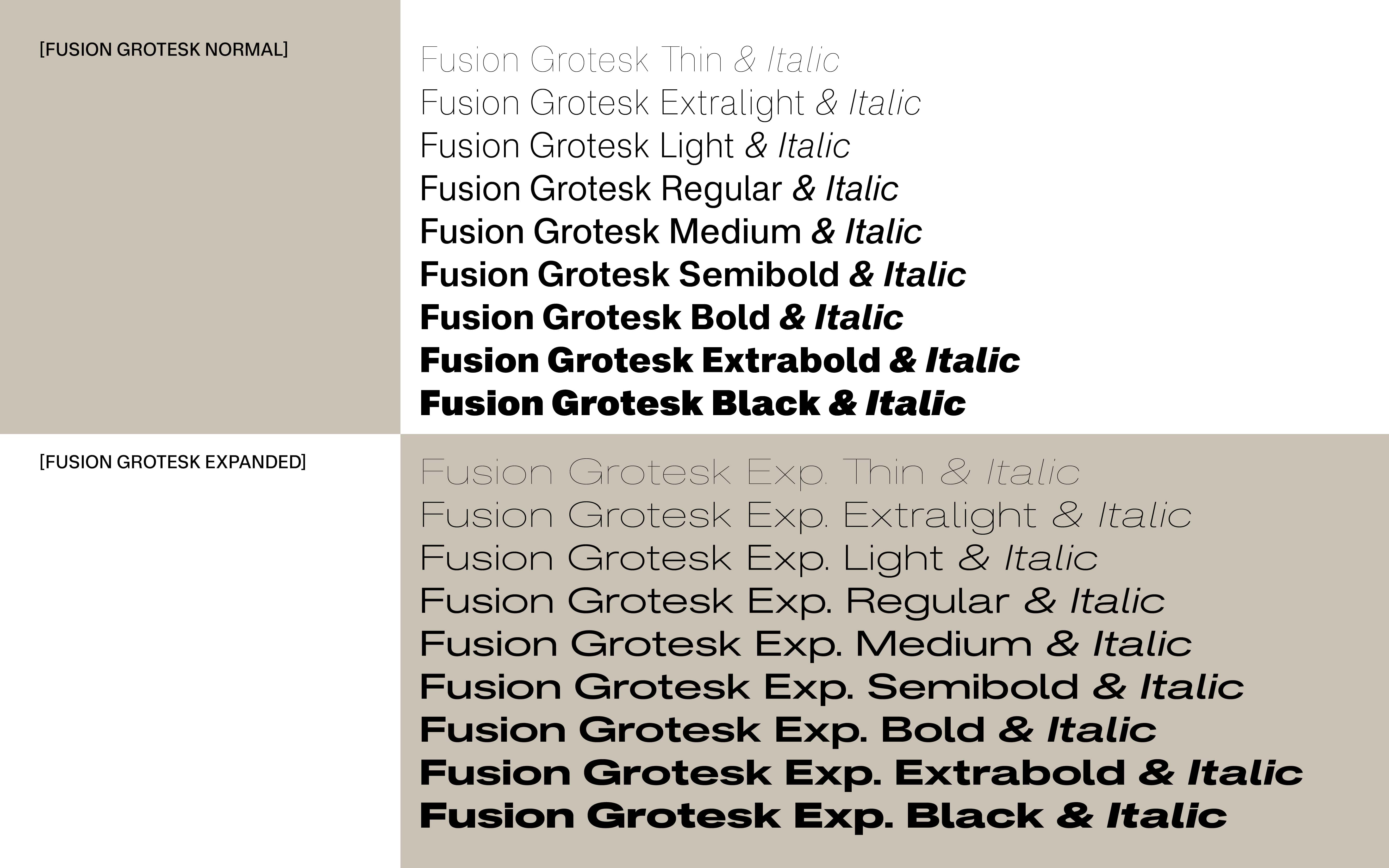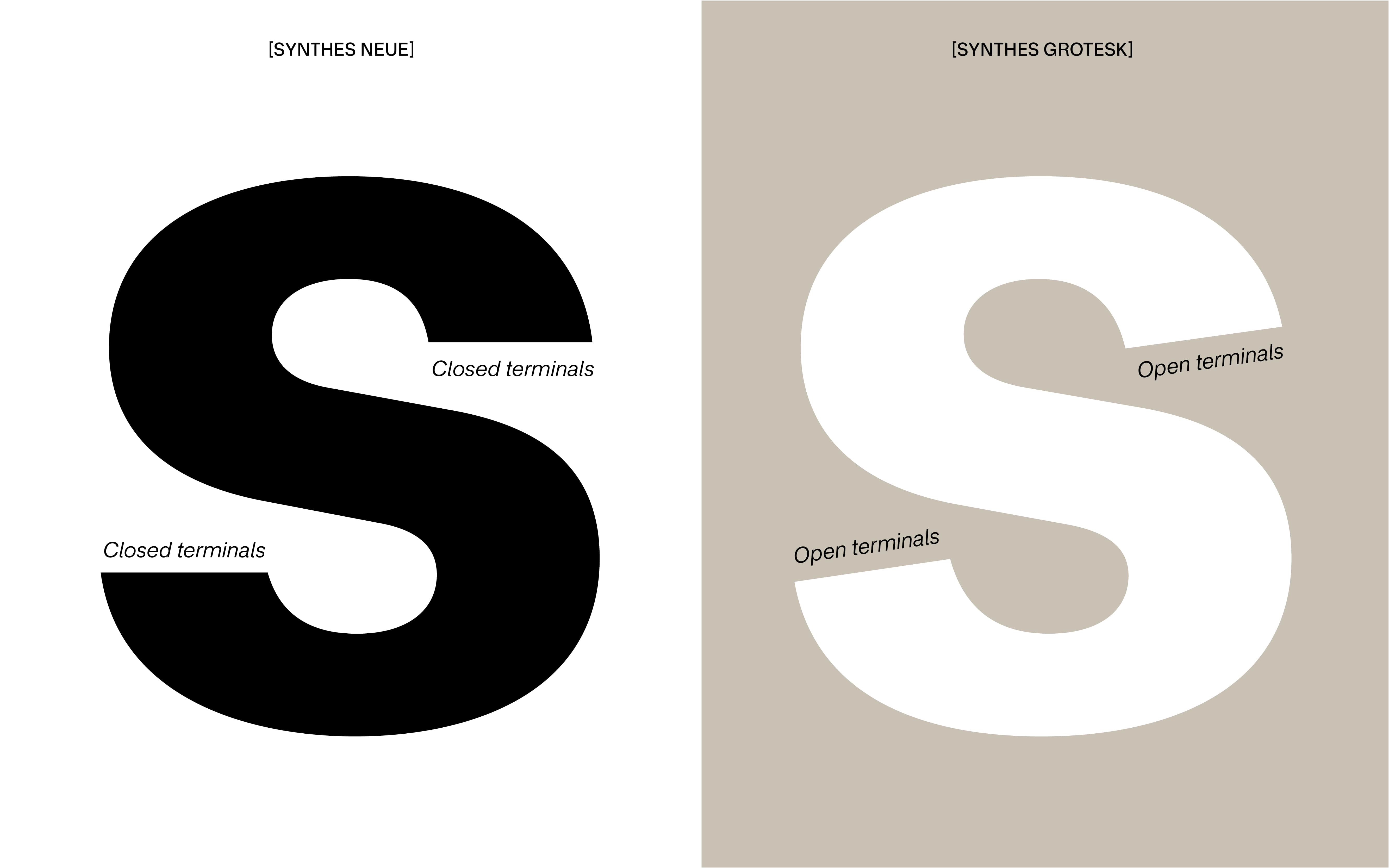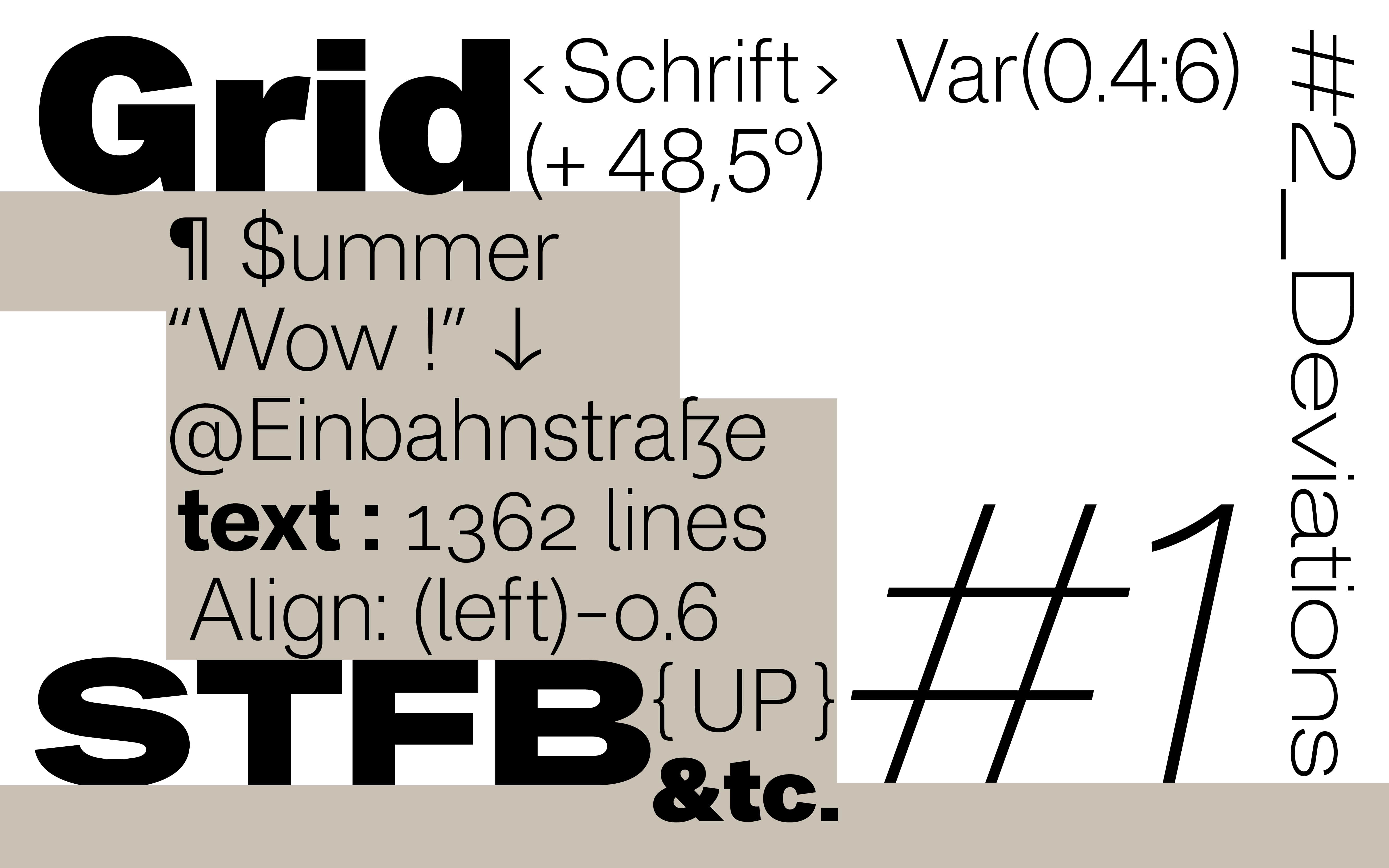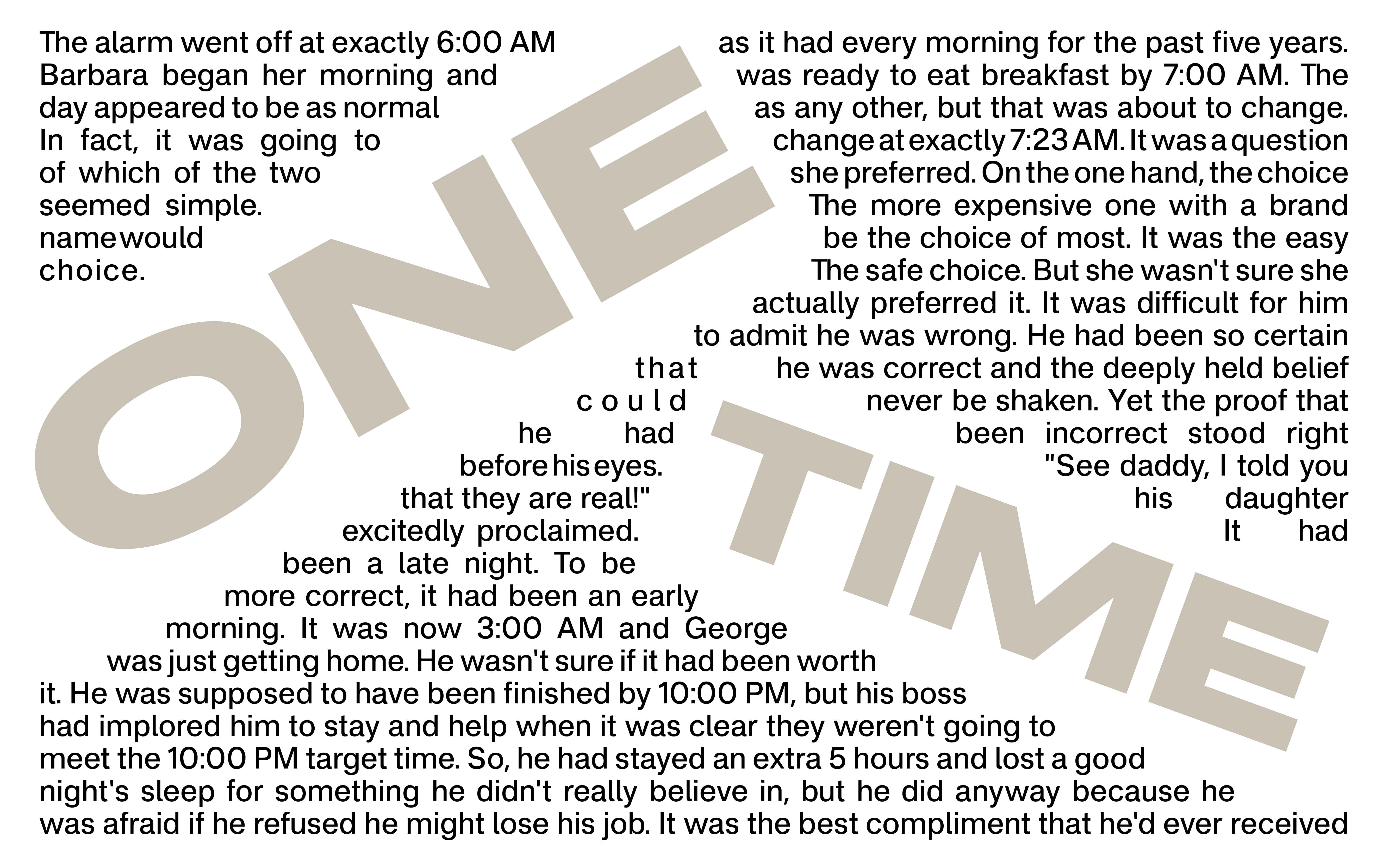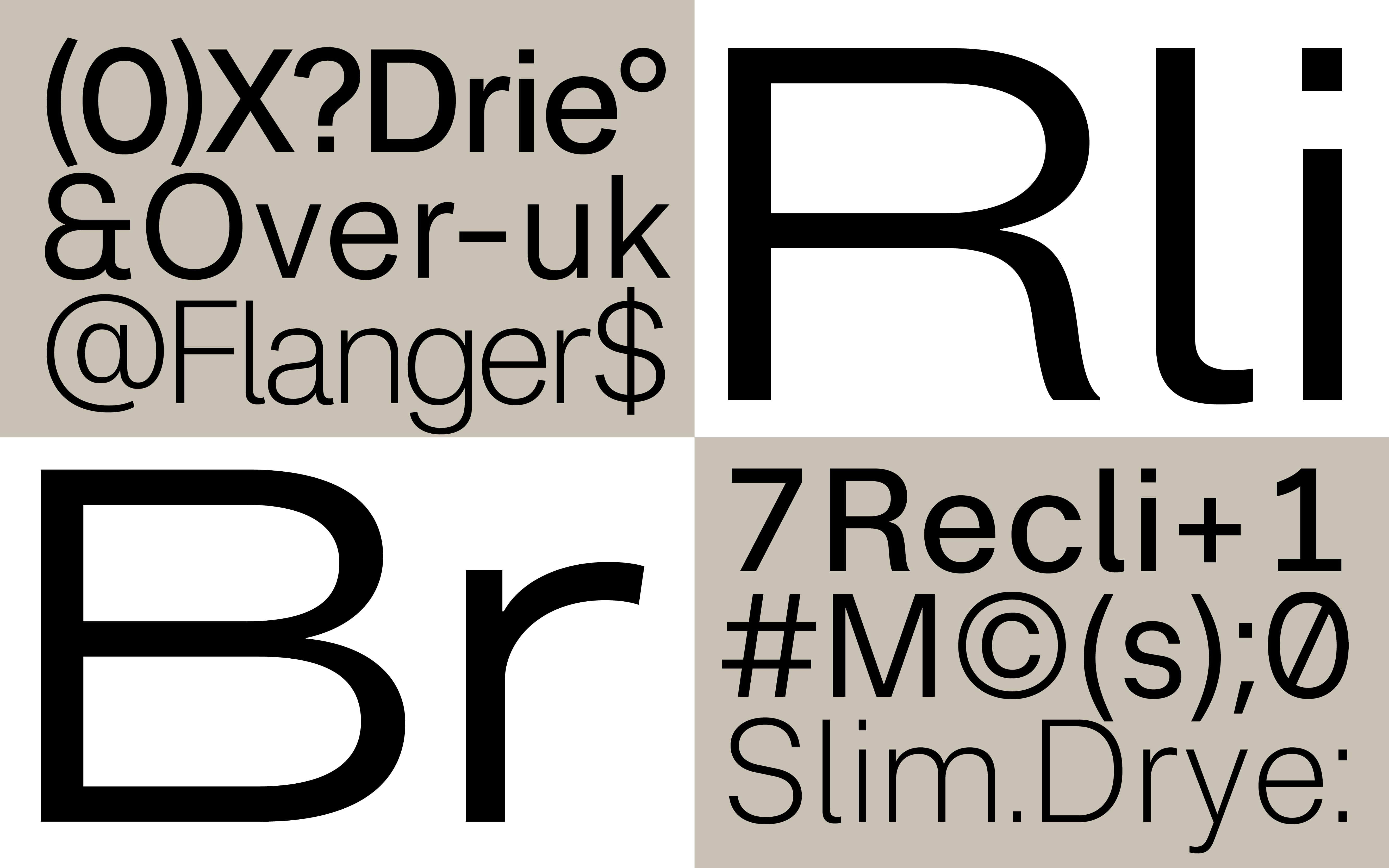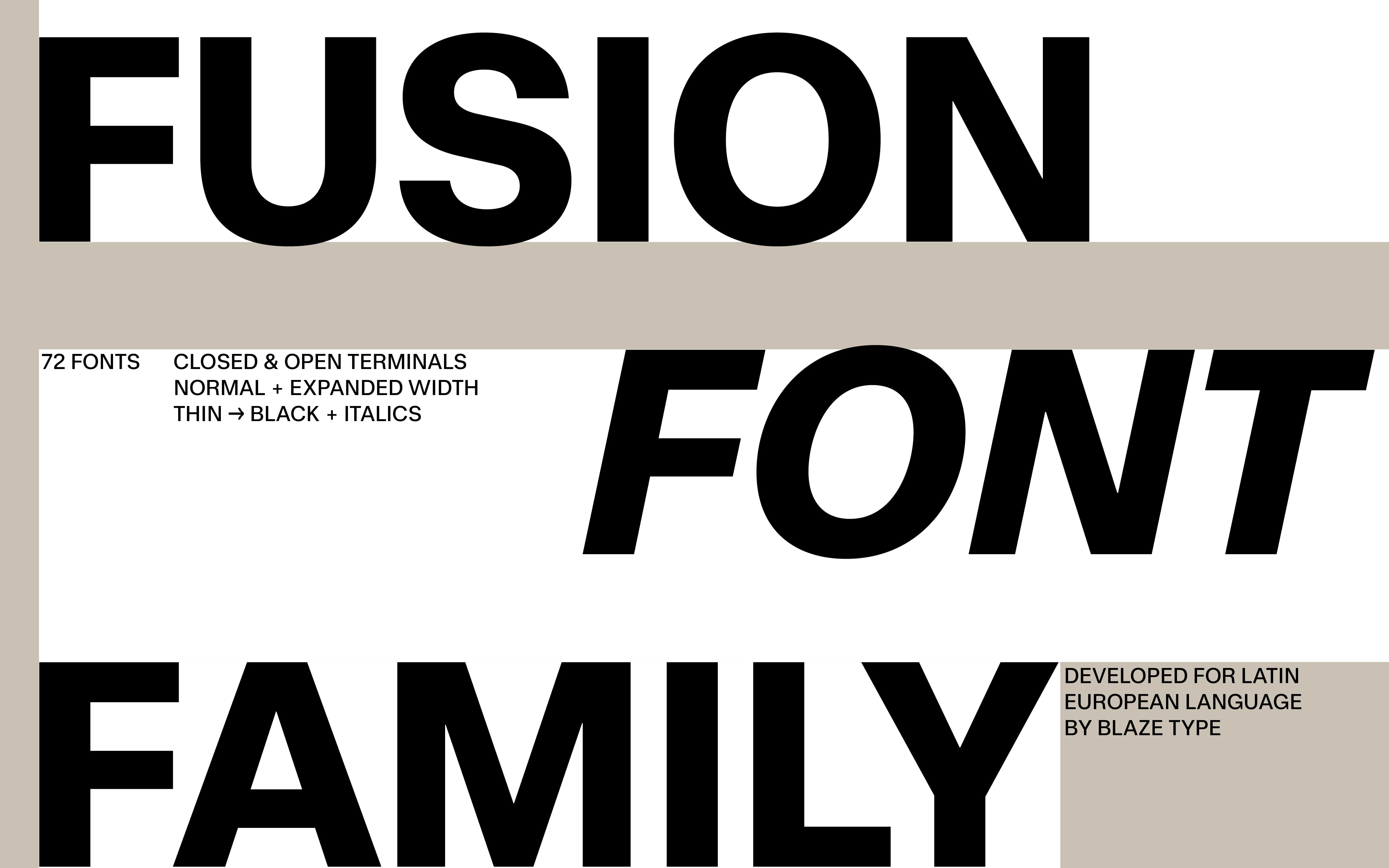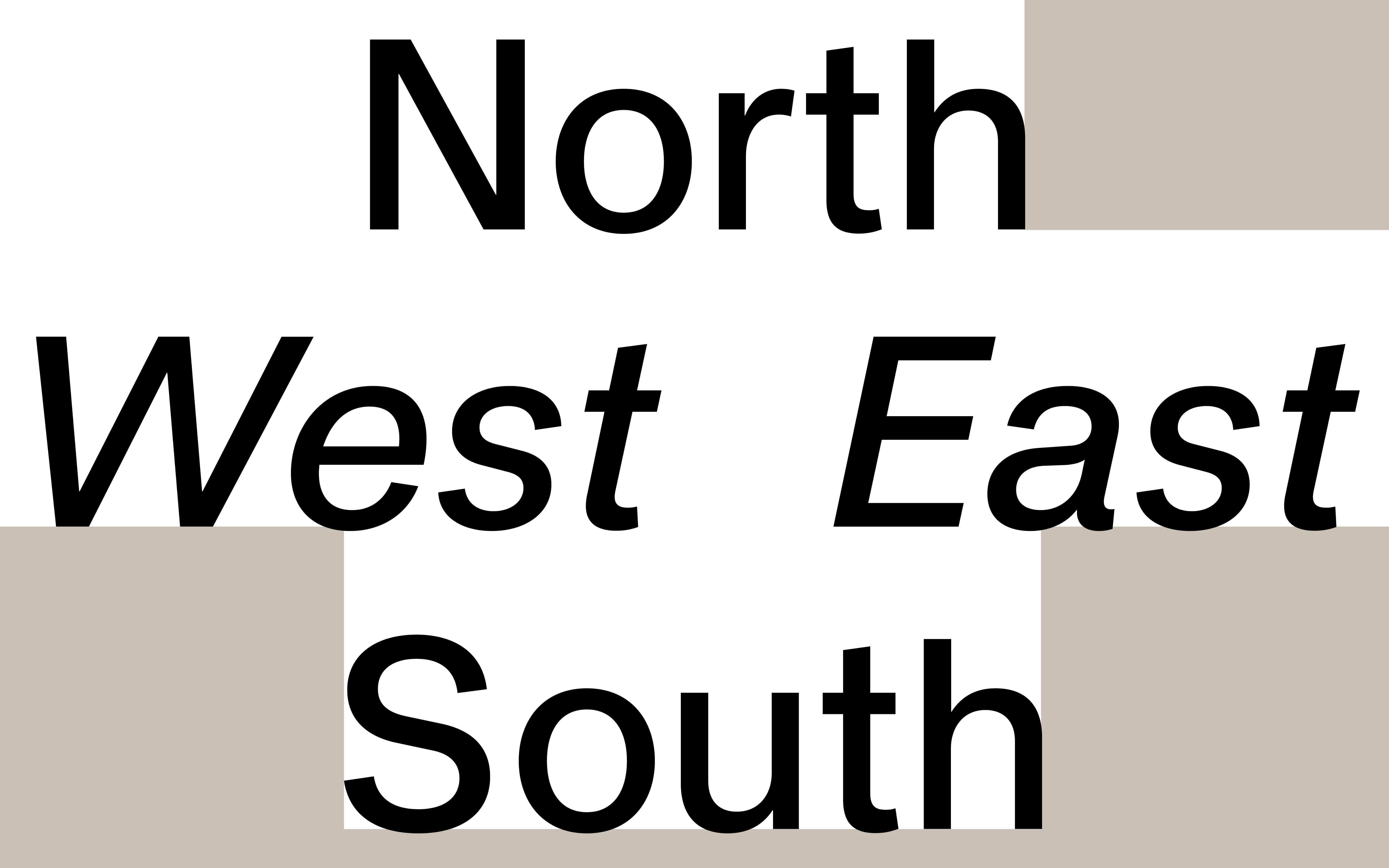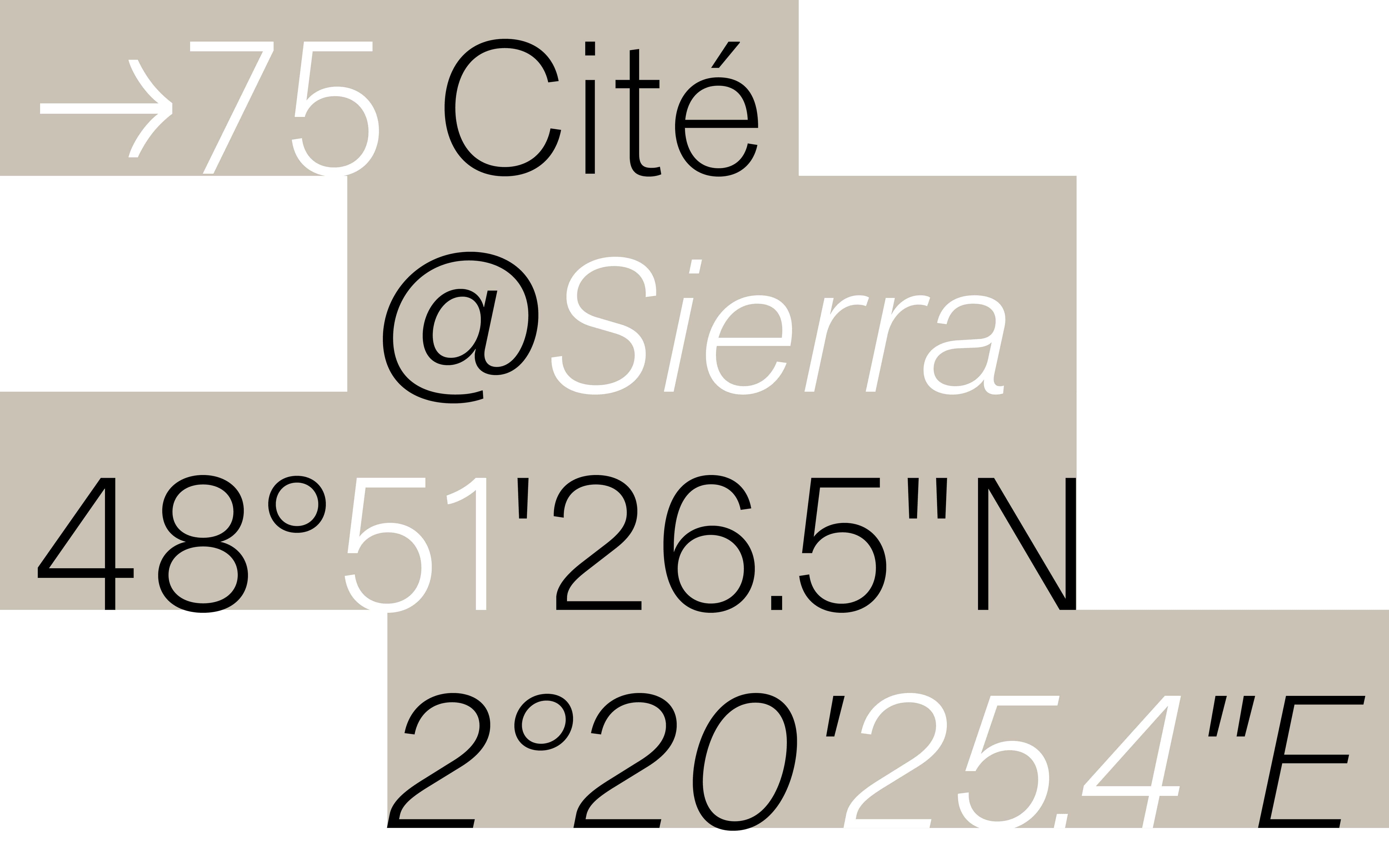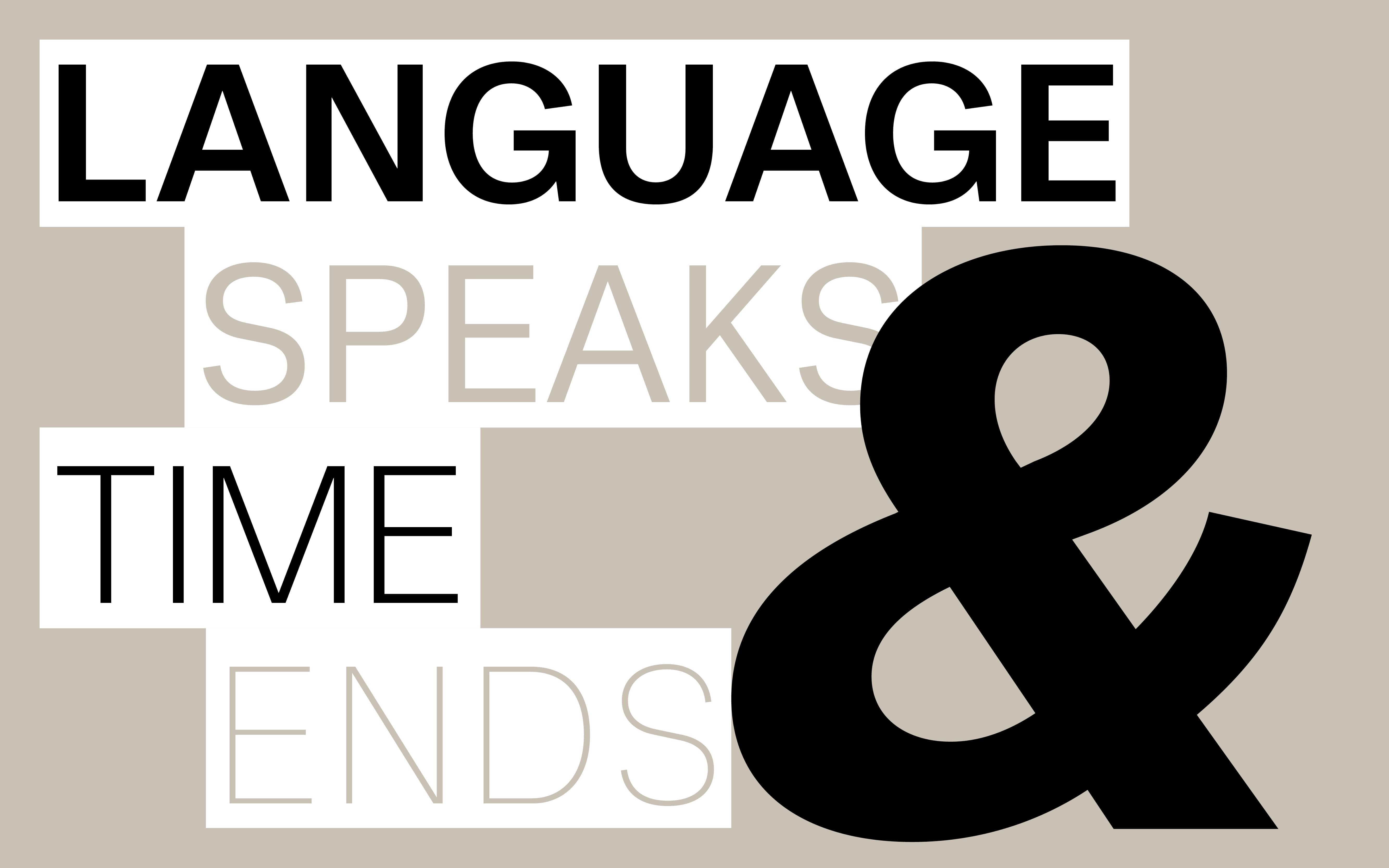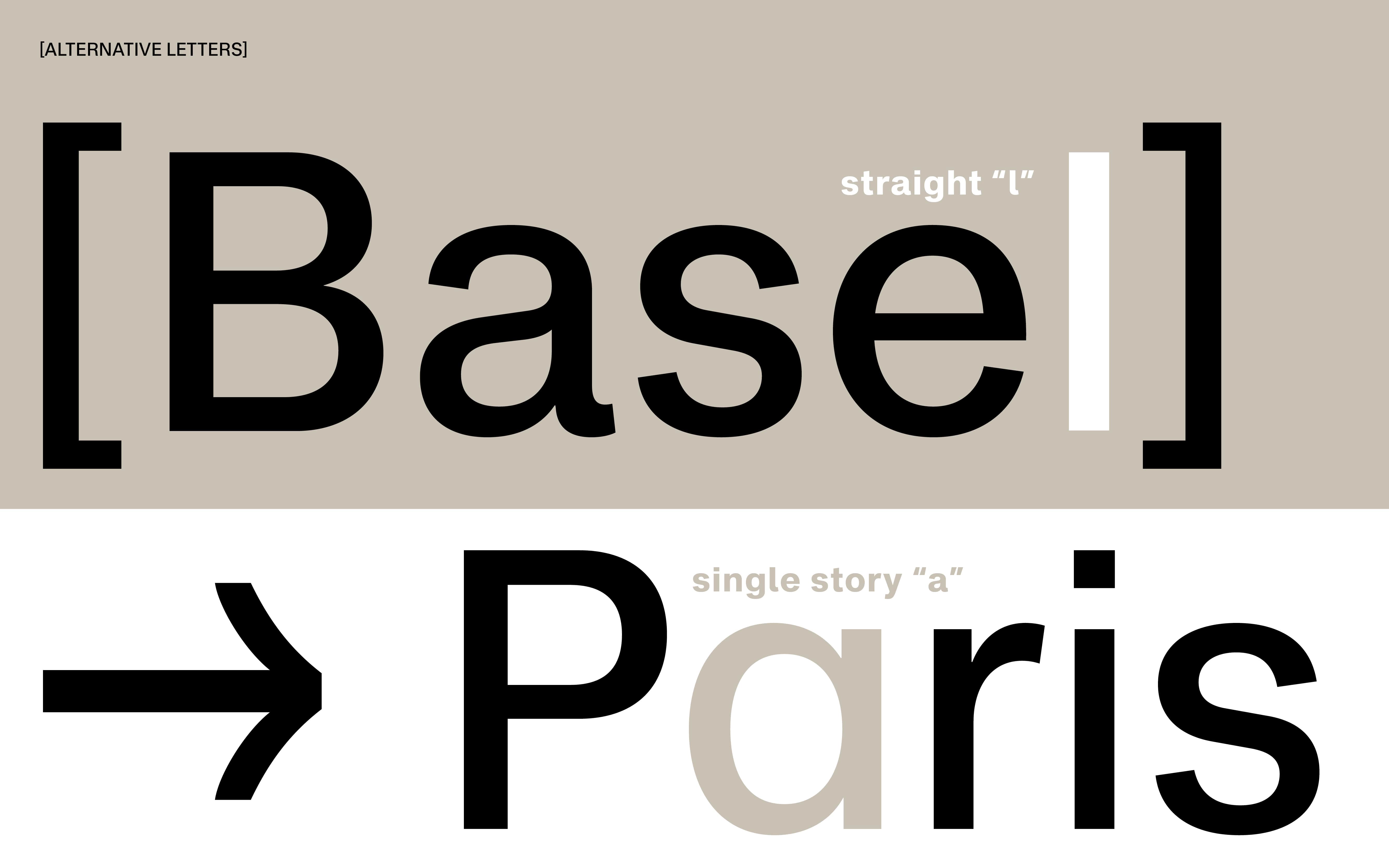
Fusion
Fusion, a typeface that draws inspiration from the iconic neo-grotesque masterpieces defining Swiss design excellence from the late 1950s to the 2000s. Embracing the spirit of two influential fonts, Helvetica by Max Miedinger and Univers by Adrien Frutiger, Fusion reimagines their timeless charm while striking a harmonious balance between the two renowned styles.
Crafted with meticulous attention to detail, Fusion exhibits clear and powerful shapes that radiate precision and professionalism. Its weight effortlessly adjusts, accentuating contrast and counterforms for unrivaled legibility, even at smaller sizes, making it an optimal choice for body text in any context.
With consistent and well-balanced forms, Fusion embraces a modern and sleek aesthetic, elevating its adaptability across diverse design applications. From commanding headlines to immersive body text, this versatile typeface seamlessly blends into various projects, creating a cohesive and captivating visual experience.
Fusion emerges as an invaluable tool for designers, boasting unrivalled flexibility and adaptability. Its capabilities extend from forging compelling branding elements to crafting refined editorial layouts, shining brilliantly across diverse media. Not to mention, its immaculately-crafted letterforms ensure exceptional performance in web interfaces, offering users a seamless and delightful reading journey.
This font family celebrates the Swiss & German font design legacy while forging a contemporary path of its own. With a fusion of classic elegance and modern functionality, this font family stands as a prized asset for designers, providing a sturdy foundation for creative projects across platforms and diverse design applications. Fusion invites you to explore the endless possibilities of its unique design and embark on a design journey that encapsulates the spirit of Swiss excellence and innovation.